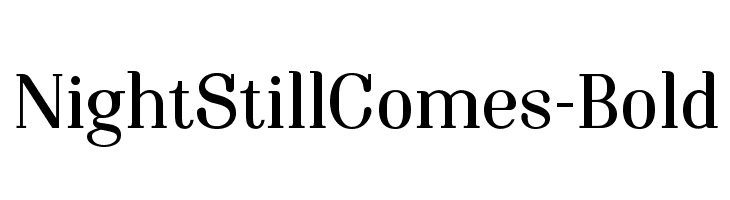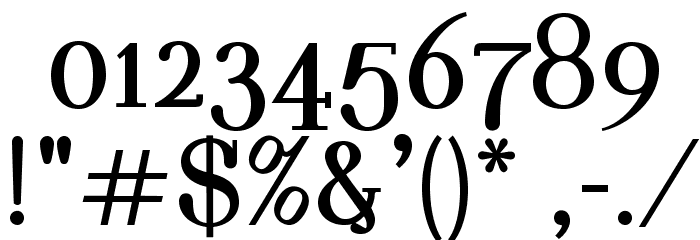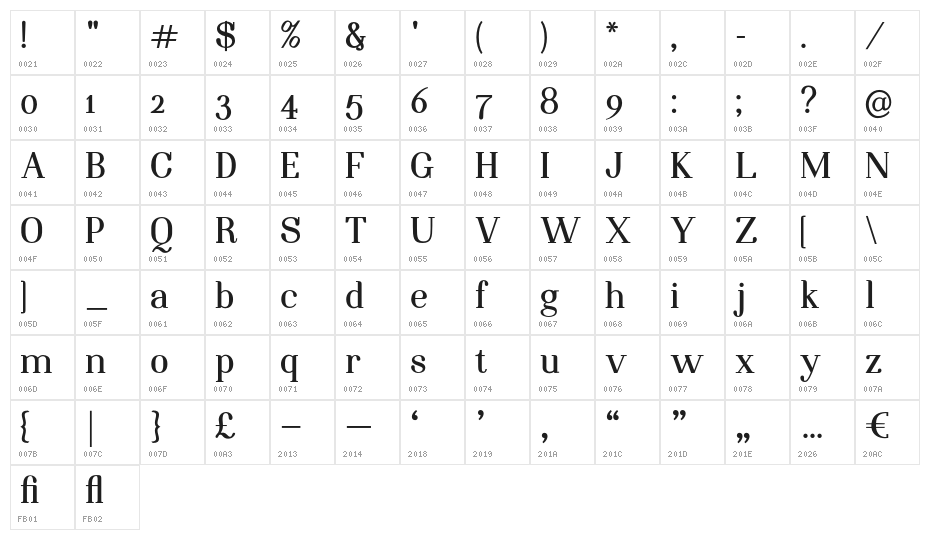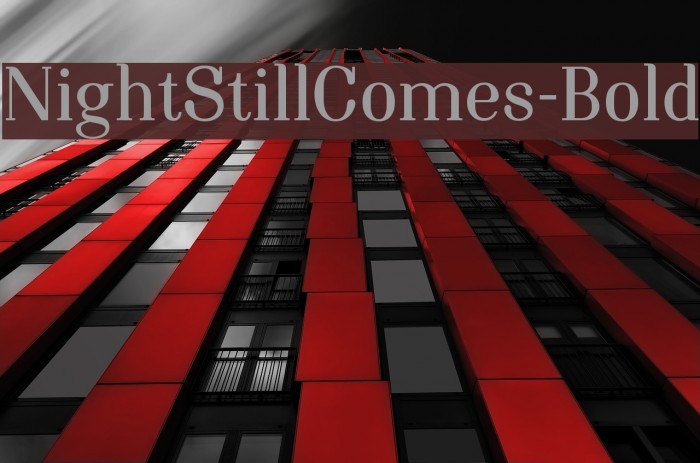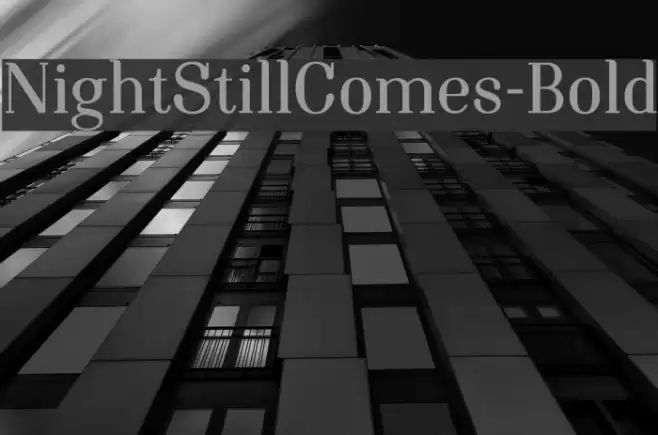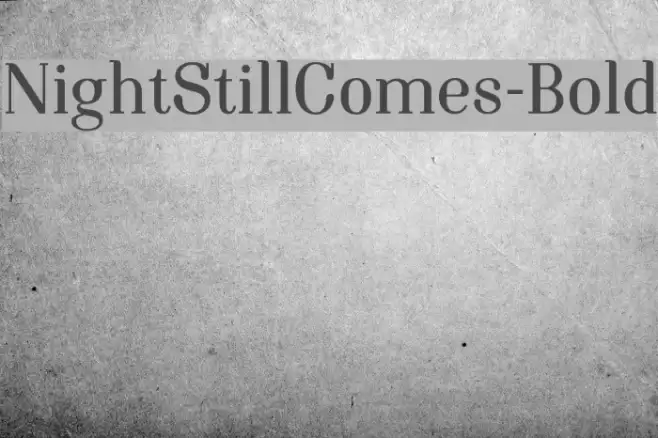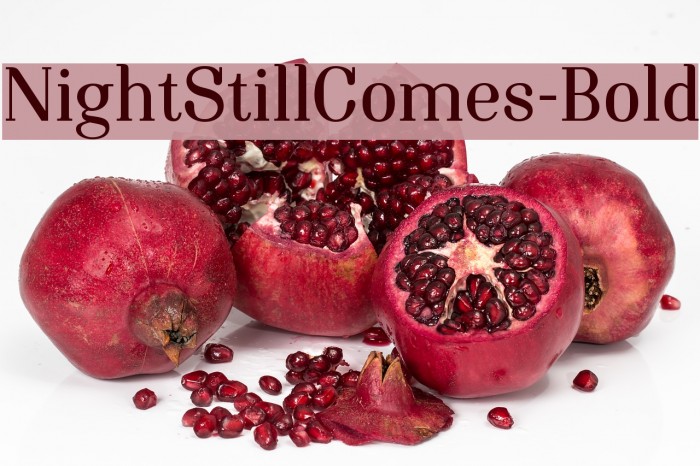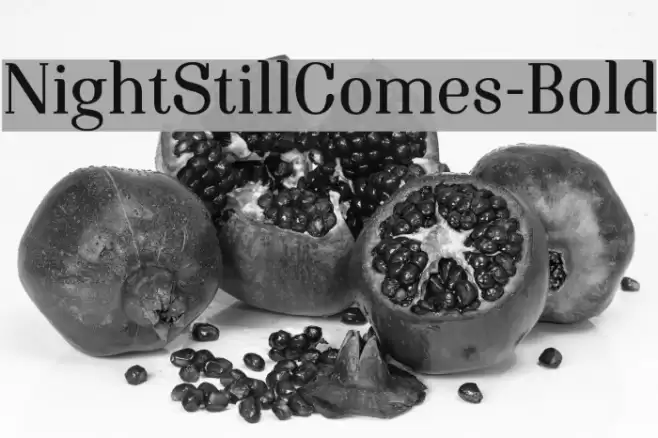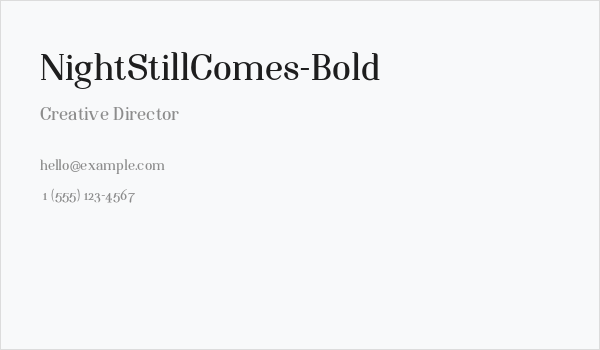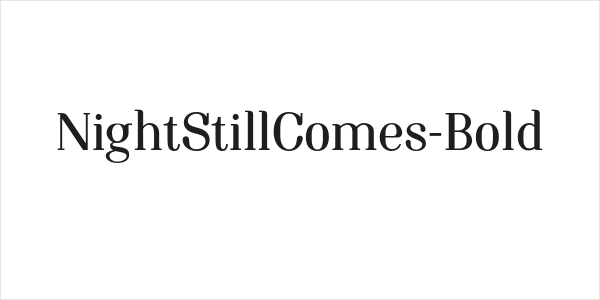
NightStillComes-Bold Font
NightStillComes-Bold Description
This font features a classic serif style with bold, prominent strokes that give it a strong and authoritative presence. The uppercase letters are well-defined with traditional serifs, while the lowercase letters maintain a consistent and harmonious flow. The numerals are clear and easy to read, making them suitable for various applications. Special characters are elegantly integrated, maintaining the overall aesthetic. The font's bold weight and high contrast between thick and thin strokes contribute to its legibility and impact, making it ideal for headlines and titles.
| Use Case | Headlines, Titles, Branding |
| Proposed Projects | Ideal for book covers, editorial headlines, branding, and formal invitations. |